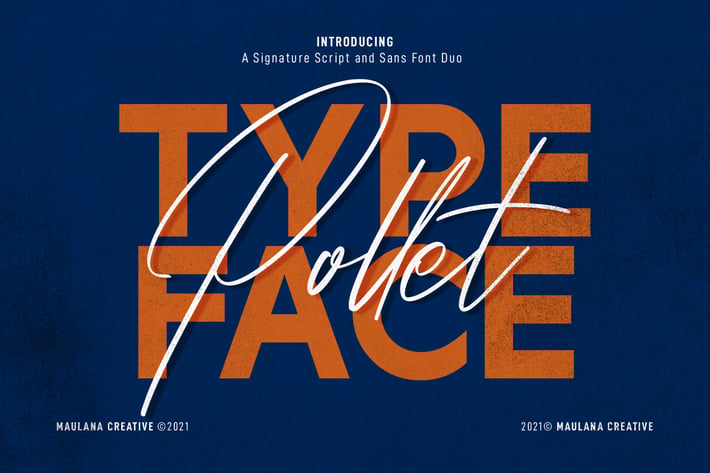
Pollet Signature Script Sans Font Duo
Pollet is a fancy signature script and sans serif font duo. With light contrast stroke, fun character with a bit of ligatures. To give you an extra creative work. Pollet font support multilingual more than 100+ language. This font is good for logo design, Social media, Movie Titles, Books Titles, a short text even a long text letter and good for your secondary text font with sans or serif. Make a stunning work with Pollet font.